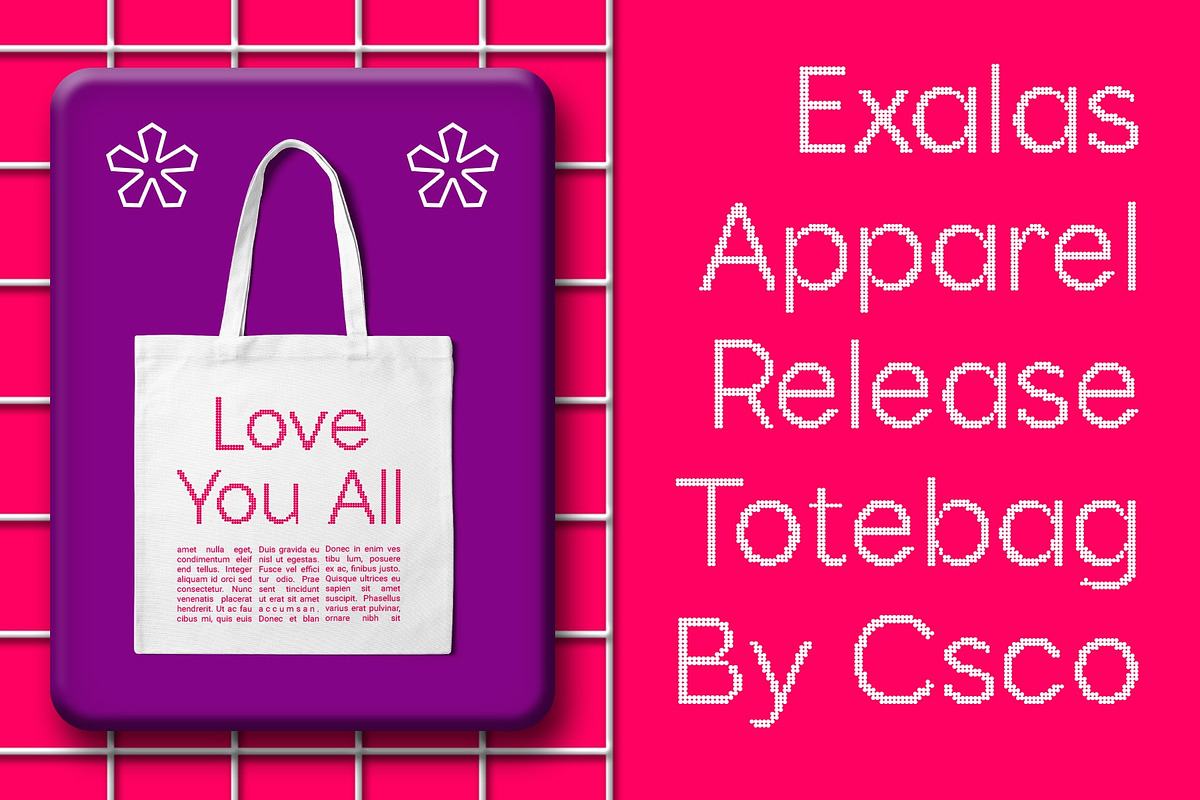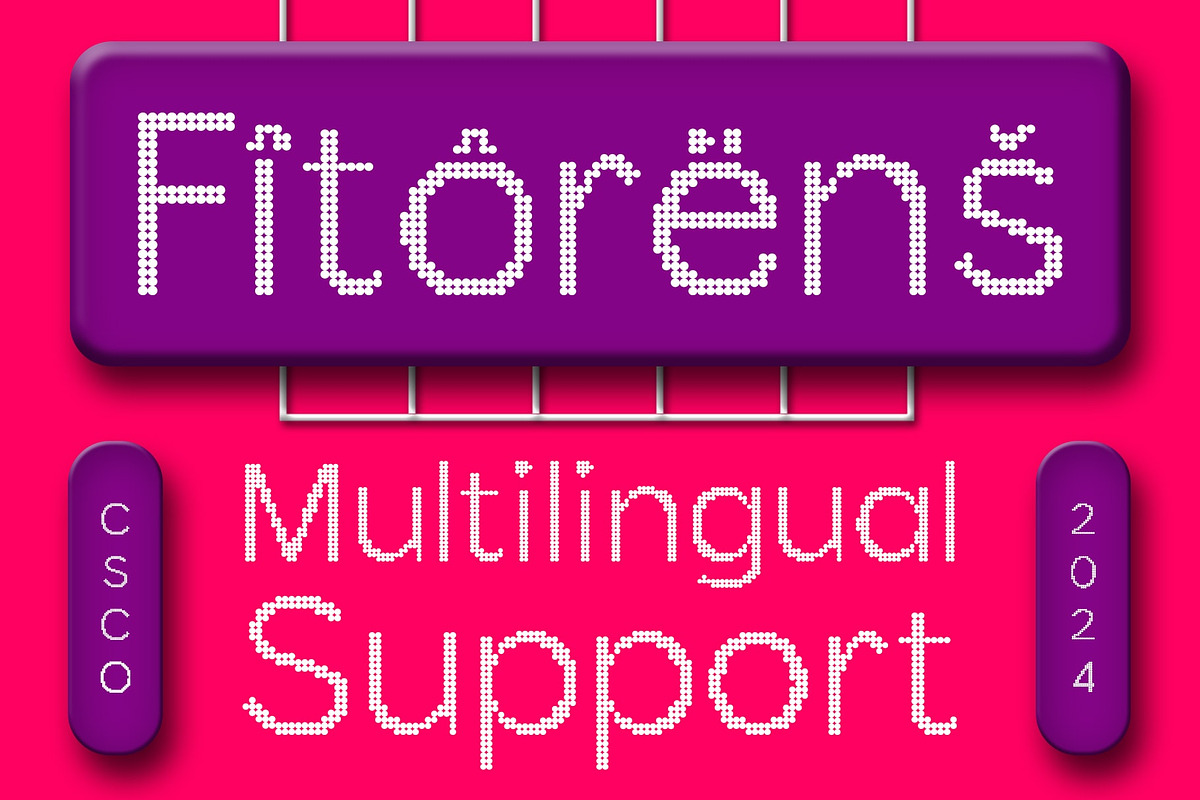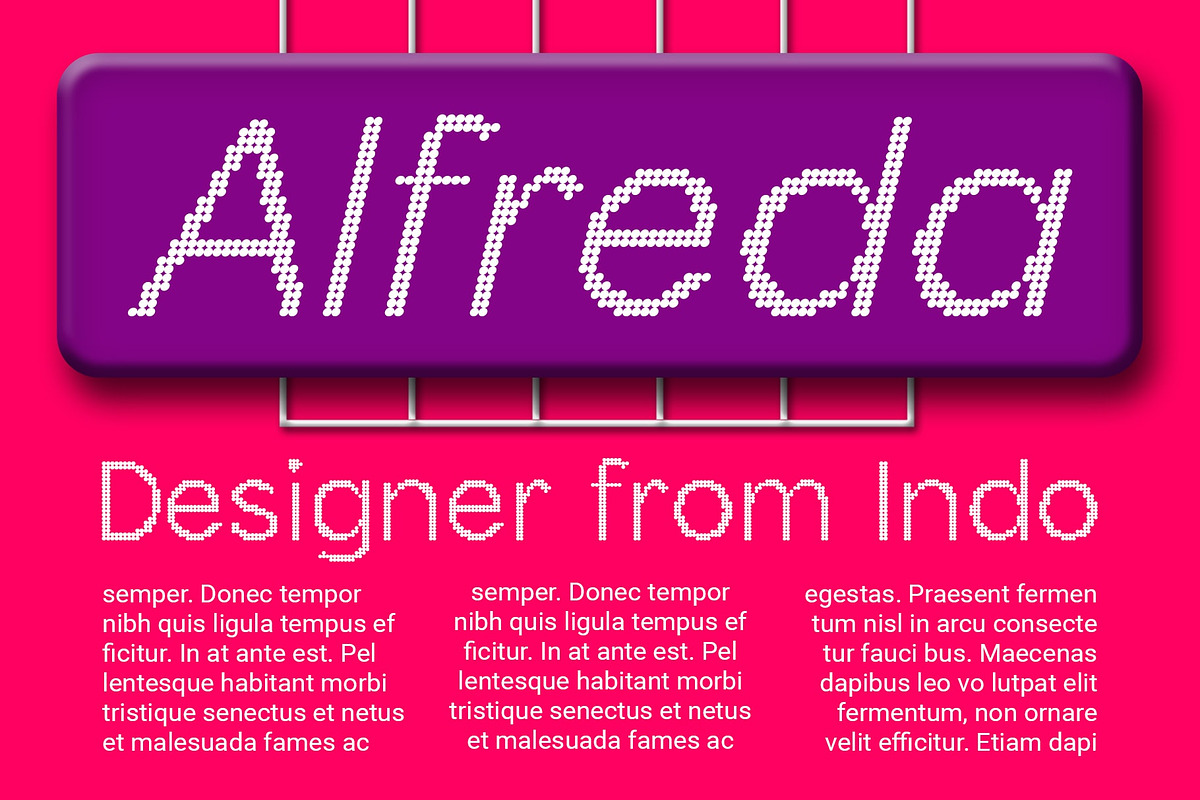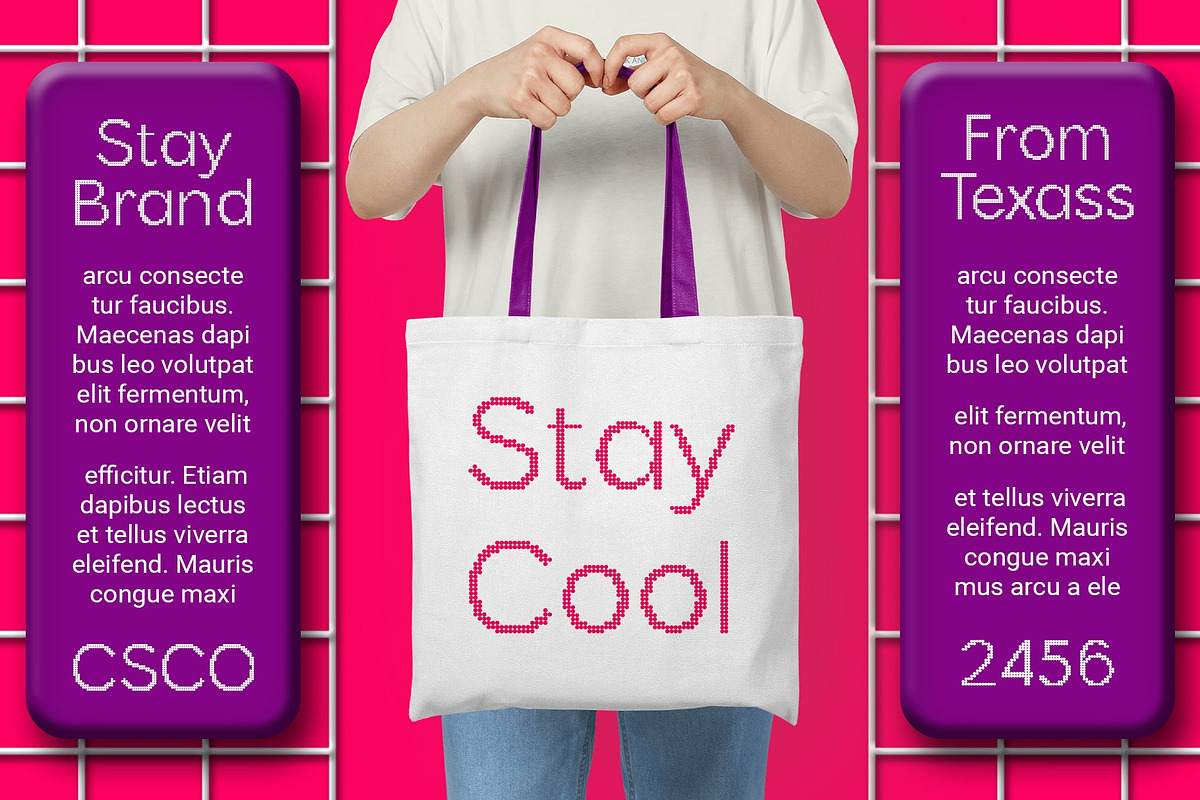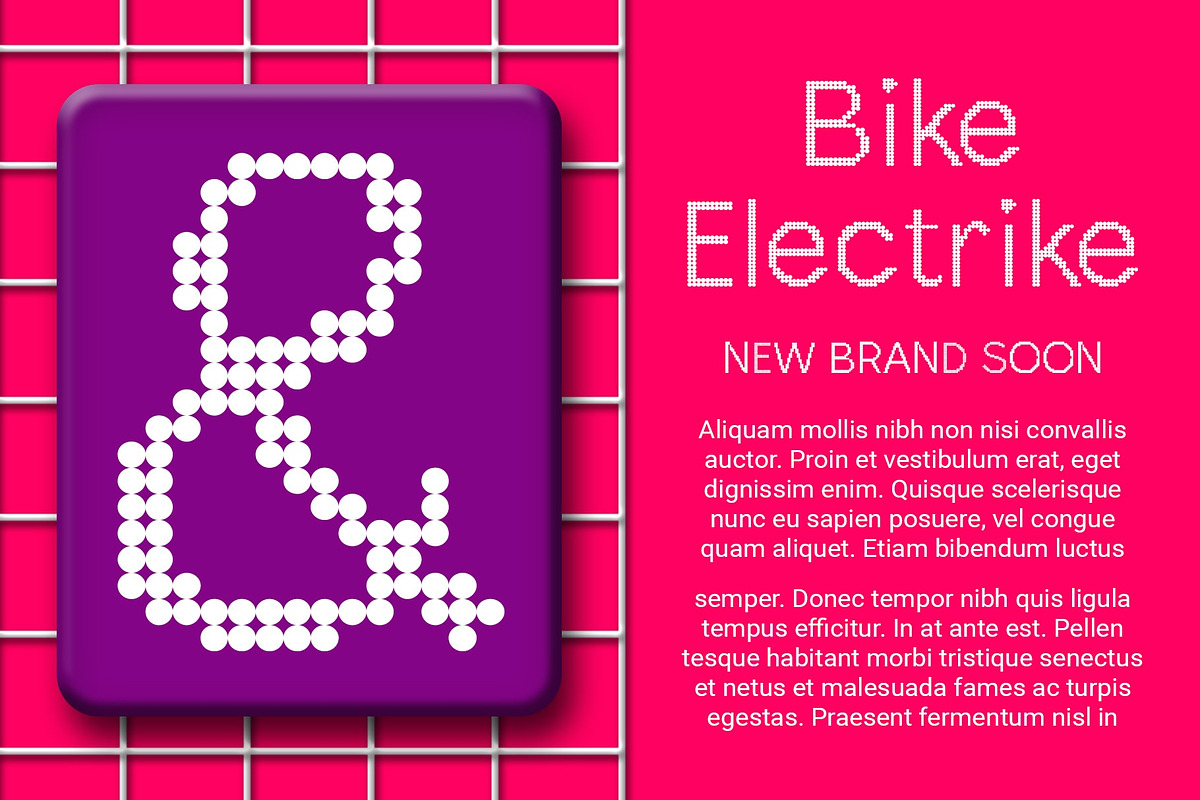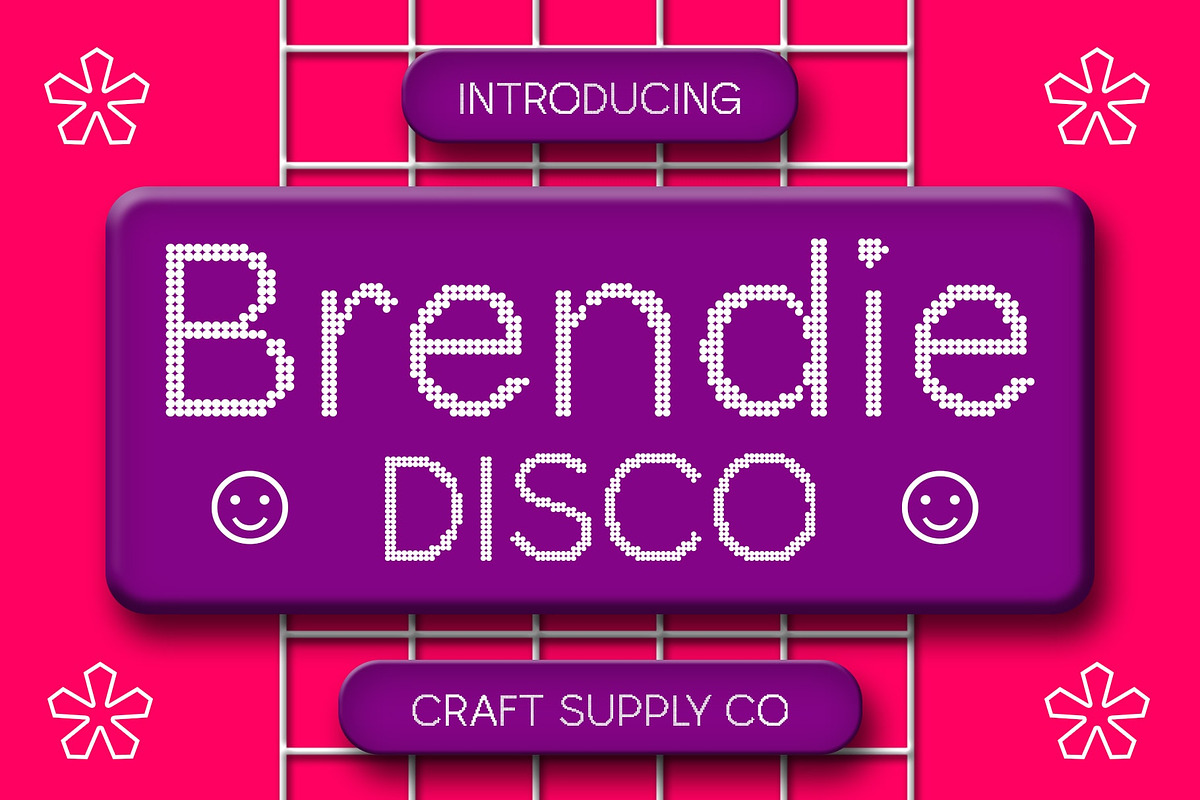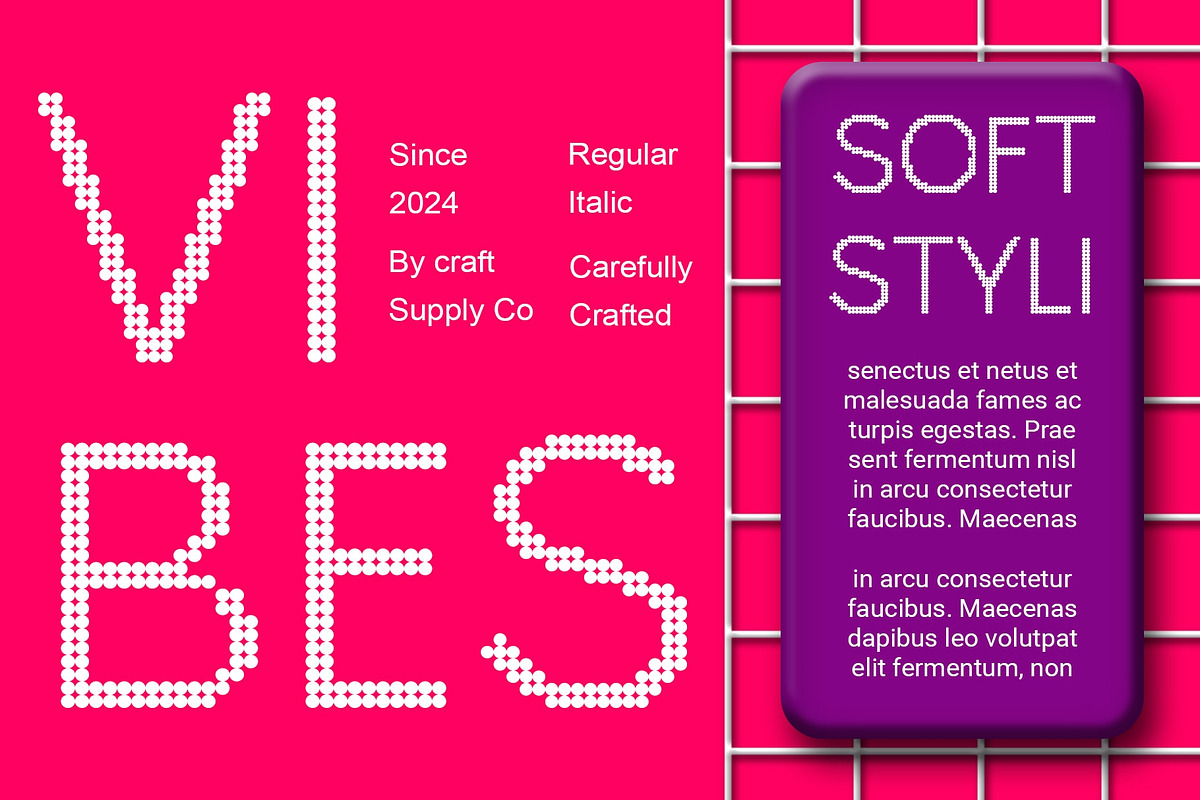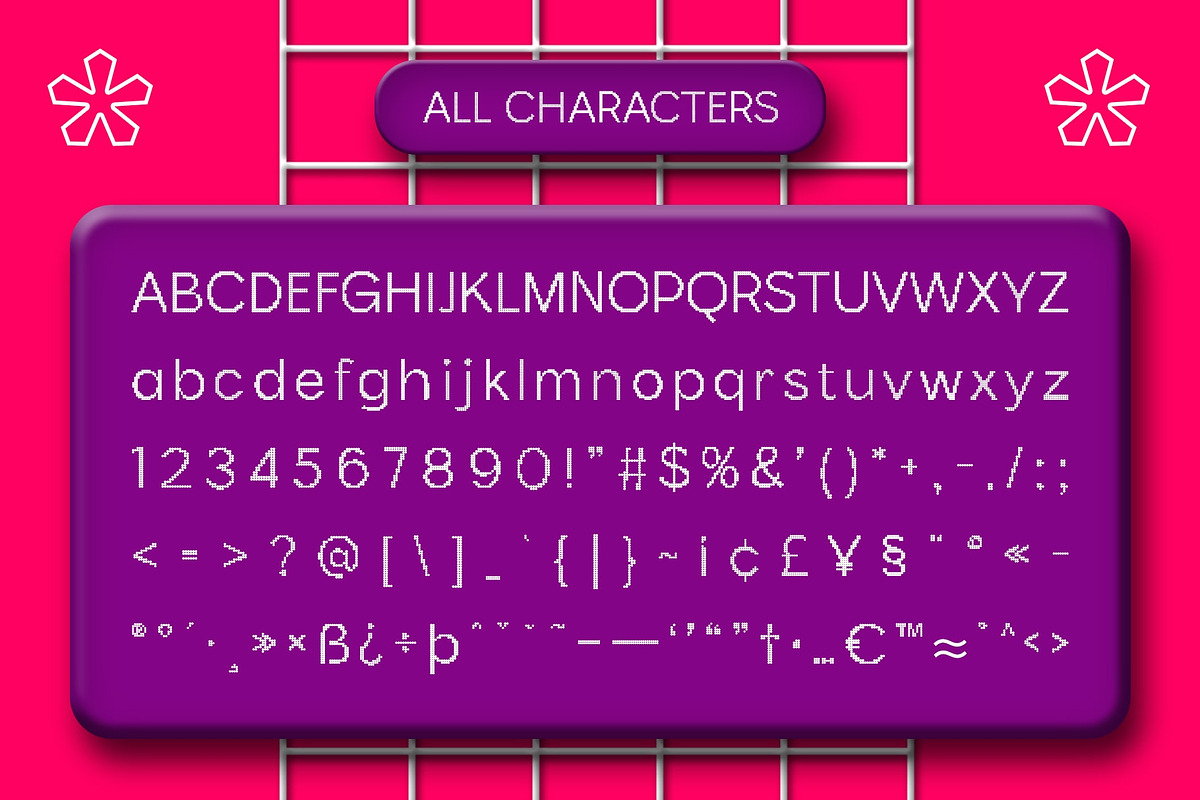
Brendie Disco
Brendie Disco: Bringing Disco Vibes to Display Typography
Dynamic Sans Serif Form Brendie Disco showcases a sleek sans serif design elevated with captivating dot effects. Each letter exudes energy and rhythm, perfect for grabbing attention in display projects.
Disco-inspired Nuance Infused with the spirit of disco, This font adds a playful and vibrant touch to any design. Its dot effects evoke the glimmering lights and pulsating beats of the dance floor, creating a lively atmosphere.
Ideal for Display Purposes Tailored for display applications, This font shines in various contexts, from event posters to digital promotions. Its dynamic appearance ensures that your message sparkles and captivates audiences.
Versatile Application Beyond its disco-inspired charm, This font offers versatility in application. Whether used in branding, advertising, or web design, its dot effects inject a dose of fun and personality into any project.
Dancefloor Delight This font emerges as a vibrant addition to display typography, infusing disco vibes into every letter. With its dynamic sans serif form and captivating dot effects, it brings a touch of excitement and energy to your designs, ensuring they stand out and shine like disco lights on the dance floor.